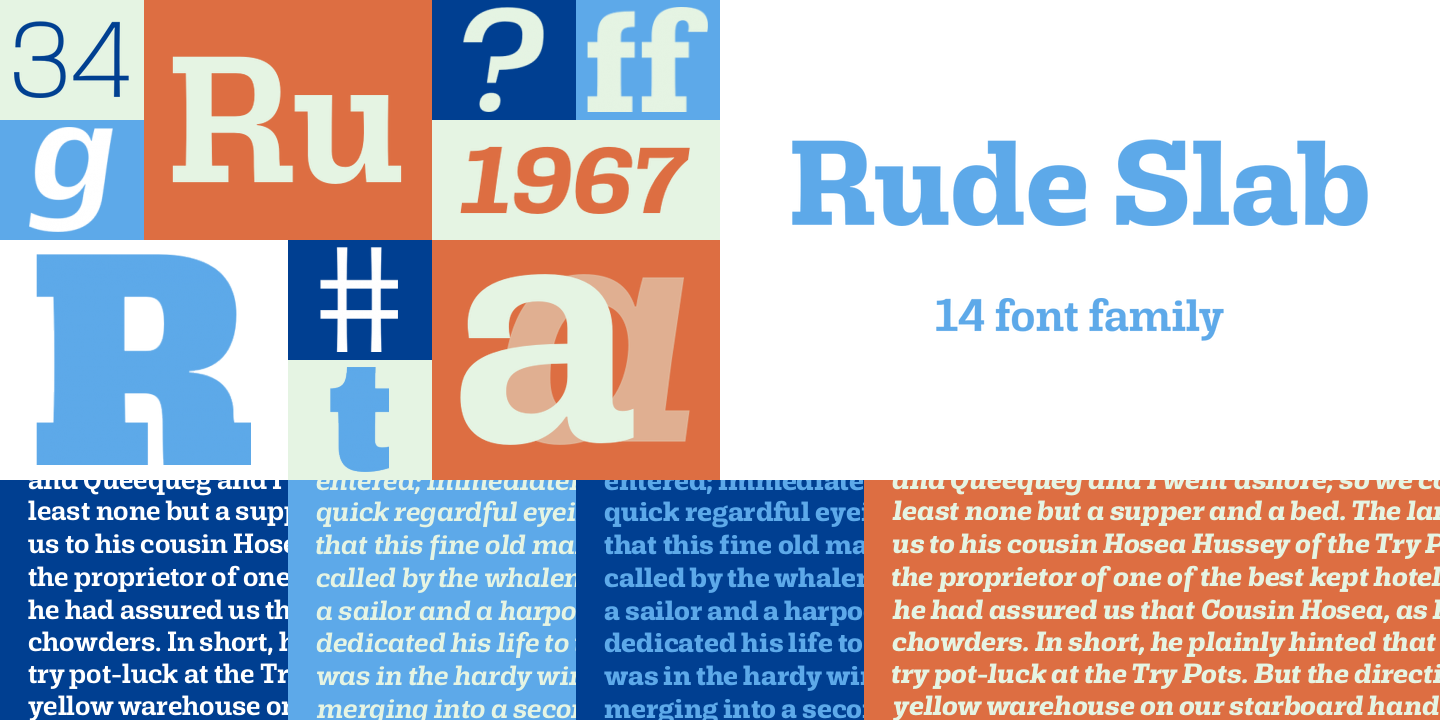
Our June 2016 issue of Font Faves features Marujo from Pintassilgo Prints, Blanc from Latinotype, Rude Slab from DSType, and Le Havre Rounded from Insigne Design.
Marujo is a fun display font by Pintassilgo Prints, a foundry who has mastered the style. Marujo comes in a variety of styles and weights, which provides added flexibility in titles most display fonts don’t have. You’d be surprised by the number of ways you can use this family, so give it a try!
Marujo
Pintassilgo Prints
We’re big fans of humanist sans fonts, and this is one that went somewhat unnoticed on Fontspring. We like its bold use of humanist characteristics, which stand out more than blend in. Use it for posters, graphics, boxes, you name it. Complete with a variety of weights and extra features, Latinotype has another winner.
Blanc
Latinotype
Rude is a massive sans and slab collection comprising a variety of weights, sizes, and widths. You can use it for an entire brand, or pick a couple out and design away. We’re highlighting Rude Slab here, because most slabs don’t have this many weights or options, and this family allows a much greater freedom than most.
Rude Slab
DSType
There’s just something appealing about a soft font, especially sans serif. Combine that with a low x-height font in display usage, and you have Le Havre Rounded by Insigne Design. Put it in your website and watch your titles come to life, or even your body text if you don’t have that much of it.
Le Havre Rounded
Insigne Design